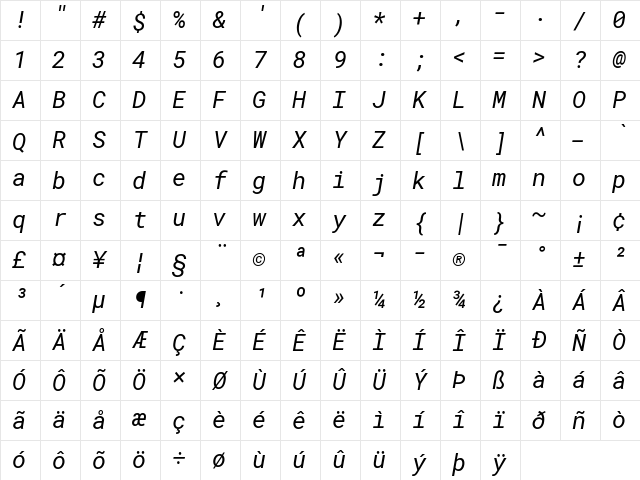
RobotoMono Nerd Font Mono Italic
Designer: Google
Complete RobotoMono Nerd Font Mono Italic glyph index. Displaying only characters natively supported by RobotoMono Nerd Font Mono Italic font.
Design Context for RobotoMono Nerd Font Mono
RobotoMono Nerd Font Mono uses fixed-width spacing throughout, giving it the structured, systematic character associated with coding environments and technical documentation. The slanted form adds forward momentum and visual energy.
Pro Tip: Use RobotoMono Nerd Font Mono with slightly increased line-height for extended reading - fixed-width spacing can feel dense in longer passages without extra breathing room.